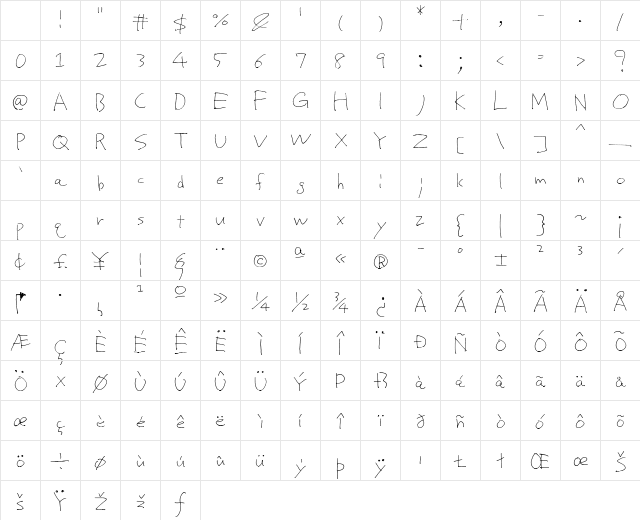
Proto Uncertain is a composed and adaptable typeface that performs quietly and consistently across a wide range of design contexts. Its slender proportions lend an understated elegance to any composition.